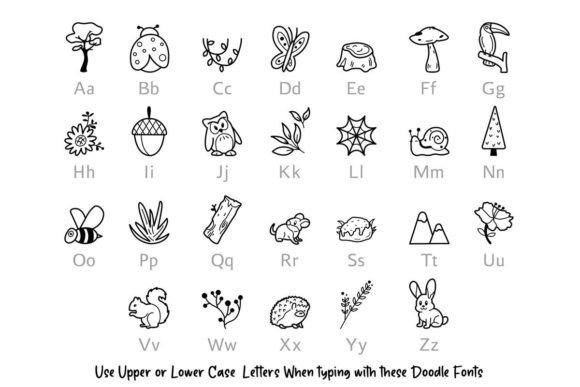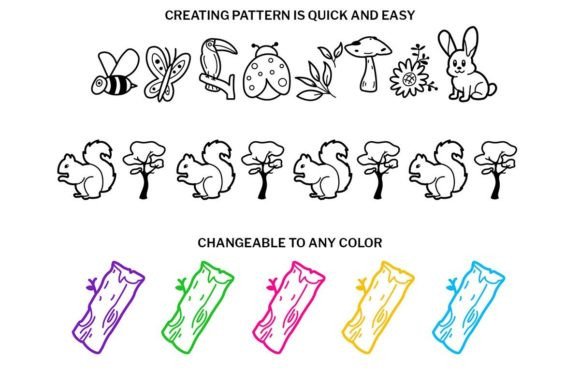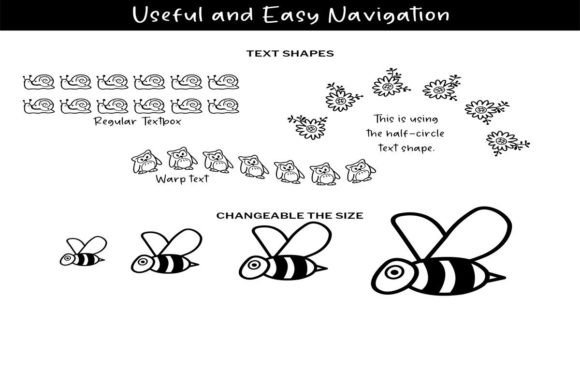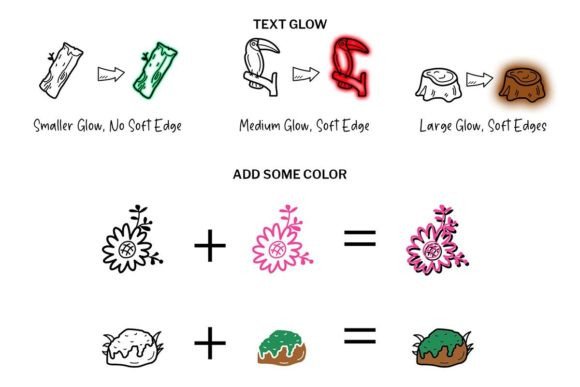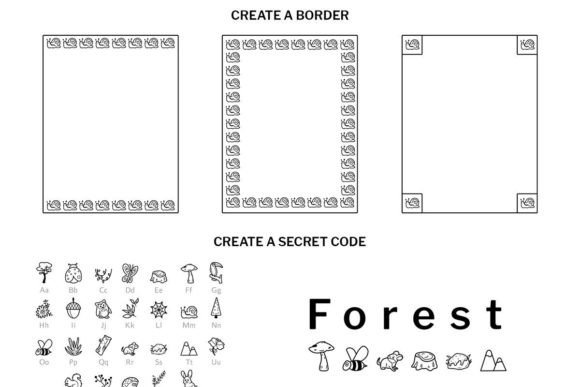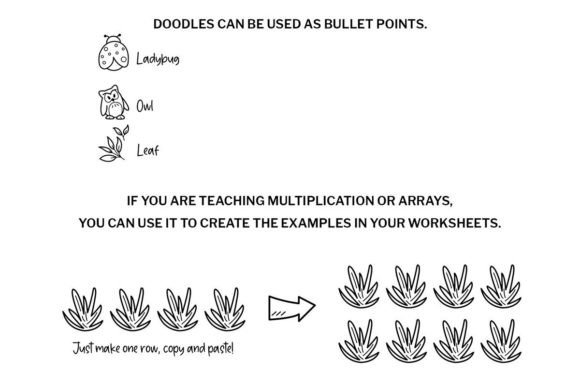
The Forest Doodle Font: A Fun and Versatile Companion for Creatives
I still remember the day I stumbled upon the Forest Doodle font while working on a whimsical planner project for a client. I had been searching for the perfect dingbat font to add a touch of playfulness to the design, but nothing seemed quite right. That was until I discovered Forest Doodle, and it instantly became the missing piece I needed. Its quirky charm and versatility won me over, and I’ve been hooked ever since.
What I Love About Forest Doodle ✨
- ✅ Versatility: Forest Doodle is a dingbat font that can be used for a wide range of projects, from craft designs and planners to diaries and activity books.
- ✅ Cute and Playful: The font’s doodle-like aesthetic adds a fun and whimsical touch to any design.
- ✅ Ease of Use: Forest Doodle is easy to navigate, even for those who are new to using dingbat fonts.
- ✅ OpenType Features: The font comes with a range of OpenType features, including glyphs and stylistic alternates, which allow for endless creative possibilities.
- ⚠️ Some characters may require manual adjustment: While Forest Doodle is generally easy to use, some characters may require manual adjustment to get the desired look.
- ⚠️ Limited use in very formal designs: Due to its playful nature, Forest Doodle may not be the best fit for very formal or professional designs.
The Designer Inspiration Behind Forest Doodle
Forest Doodle was created with the intention of bringing a touch of playfulness and whimsy to designs. The font’s creator drew inspiration from the natural world, combining elements of doodling and hand-drawn typography to create a unique and versatile font.
Q: What type of projects is Forest Doodle best suited for?
A: Forest Doodle is a versatile font that can be used for a wide range of projects, including craft designs, planners, diaries, activity books, and more.
Q: Is Forest Doodle easy to read?
A: Forest Doodle is a dingbat font, so it’s not designed to be a traditional readable font. However, it’s perfect for adding a touch of whimsy and personality to designs.